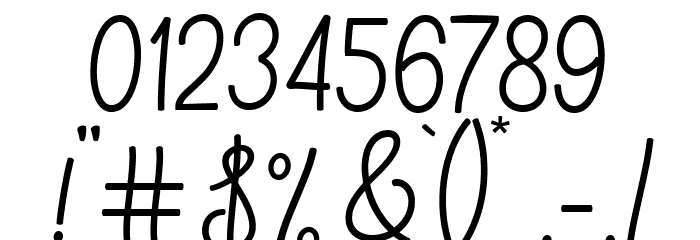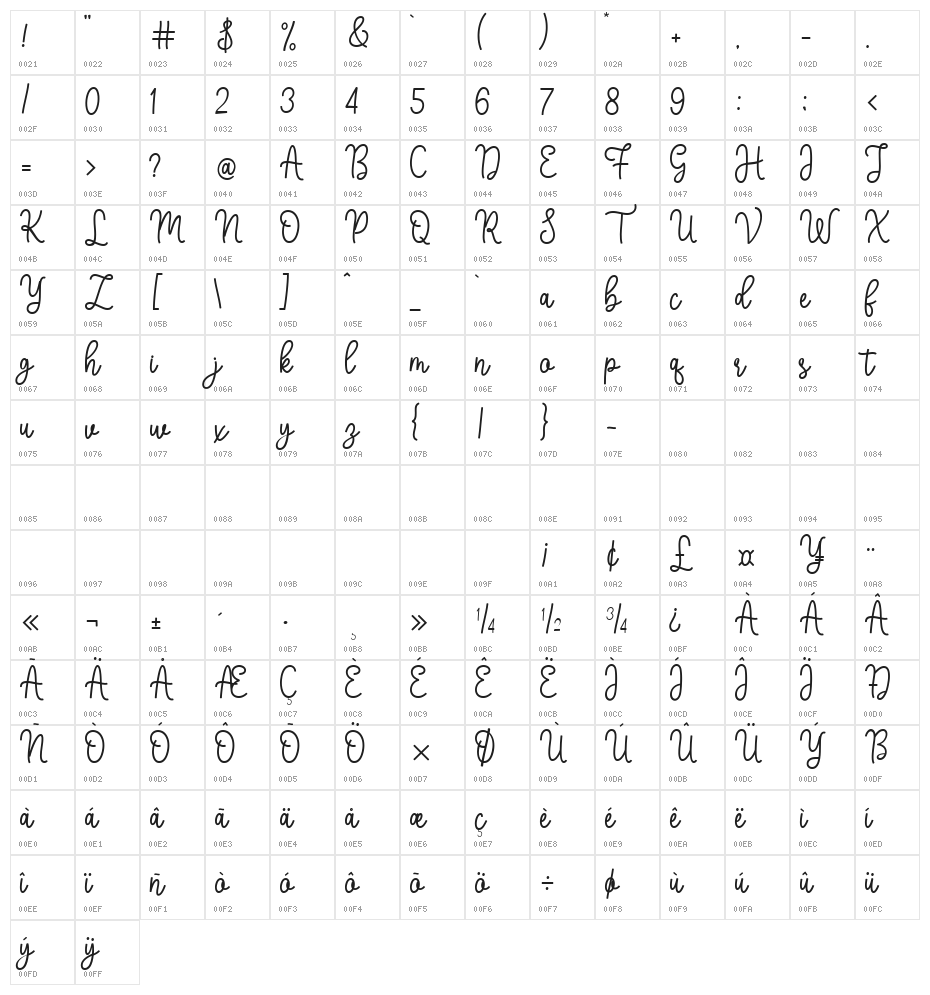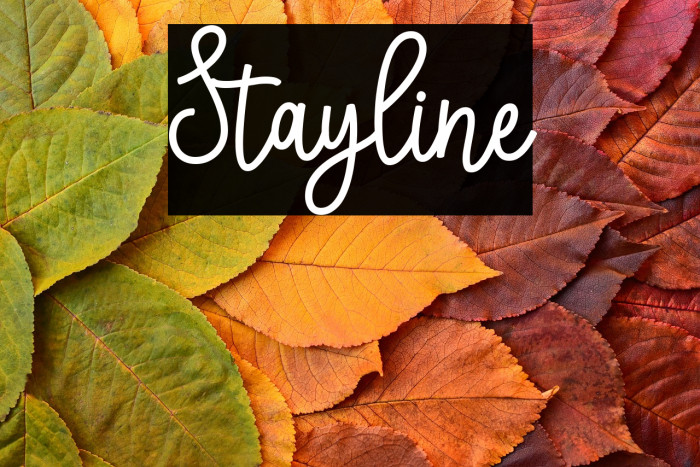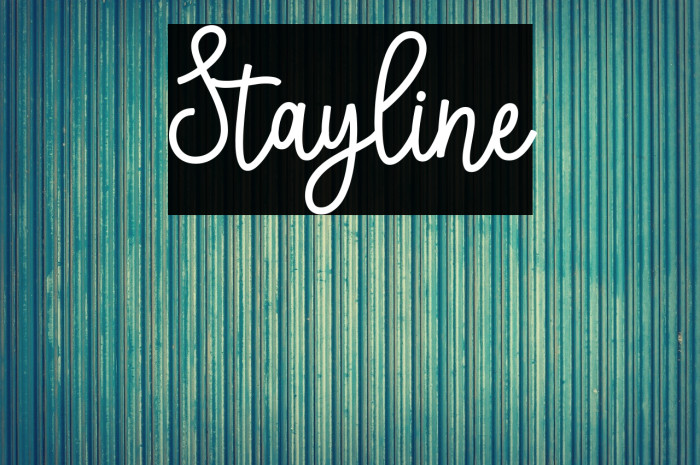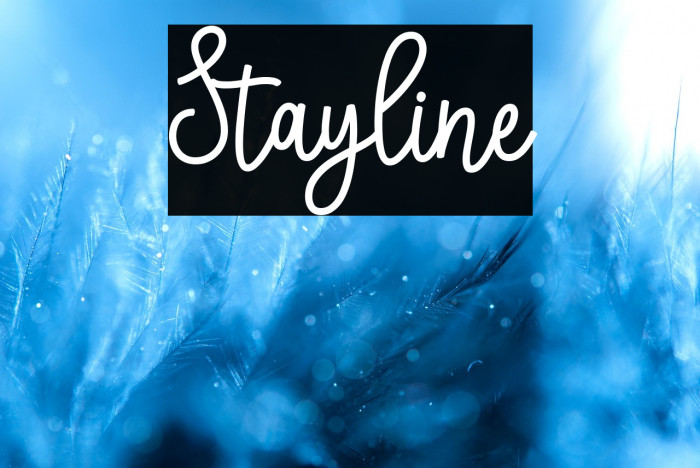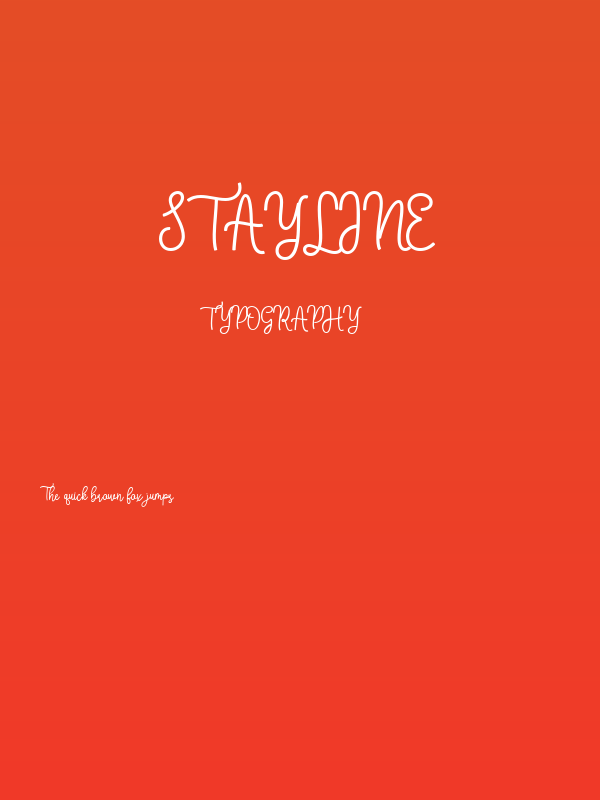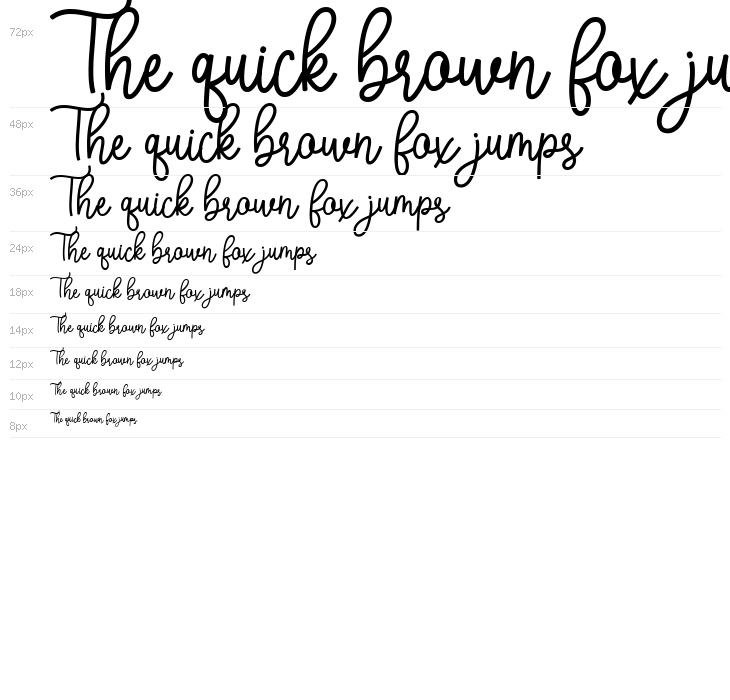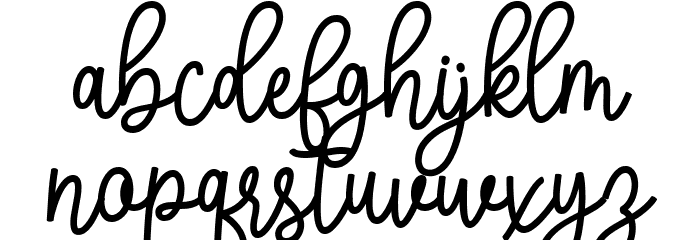
Stayline Font
Stayline Description
This font features a playful and casual script style, characterized by its flowing, connected letters that mimic a handwritten appearance. The uppercase letters maintain a consistent height, while the lowercase letters exhibit a charming looped design, adding to the font's whimsical nature. The numerals are clear and easy to read, complementing the overall style. Special characters are thoughtfully integrated, maintaining the font's cohesive look. The strokes are consistent in width, offering a balanced and harmonious appearance. This font is ideal for projects that require a personal touch, such as invitations, greeting cards, or branding materials that aim to convey warmth and approachability.
Overall StyleCasual, Handwritten
Use CaseHeadlines, Logos, Invitations
Proposed ProjectsIdeal for invitations, greeting cards, personal branding, and creative projects.